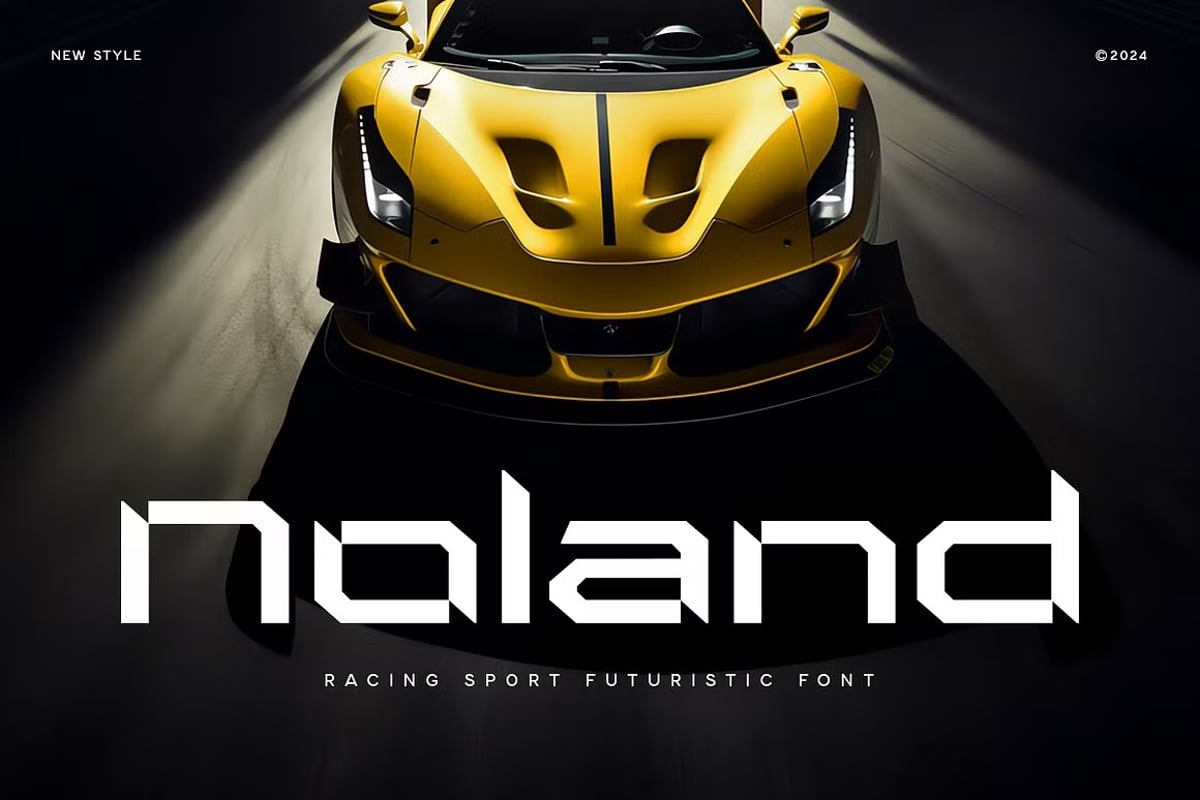
Noland - Sport Futuristic Font
Unleash bold action with Noland - the sport futuristic font designed for maximum impact and modern edge. Noland delivers the perfect combination of athletic power and futuristic style, specially crafted for branding, titles, and standout typography in sport and action contexts. This typeface brings bold action style with modern feels, making it ideal for sport, technology, action, and fighting themed projects that demand attention. Noland Sport Futuristic Font includes: Carefully crafted charact...